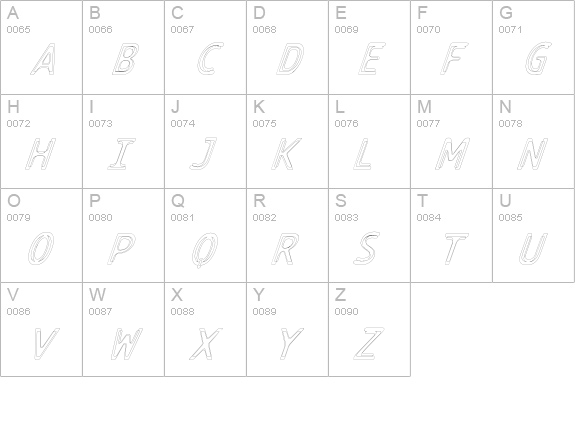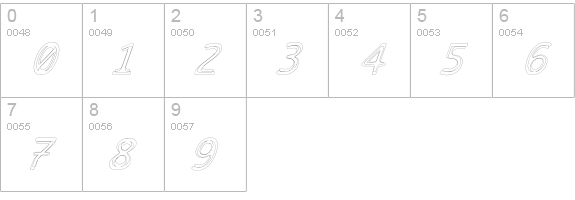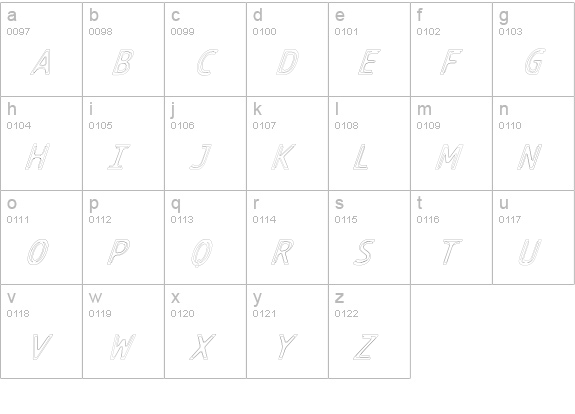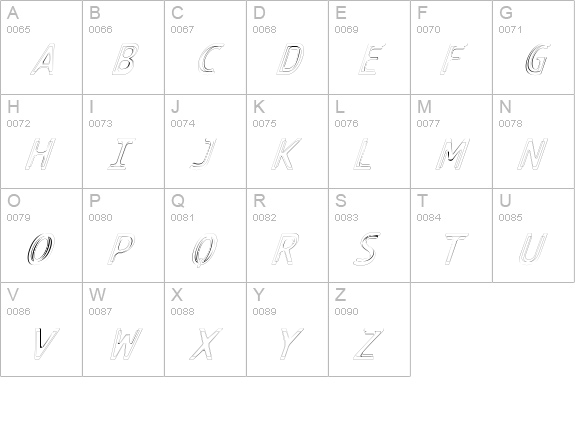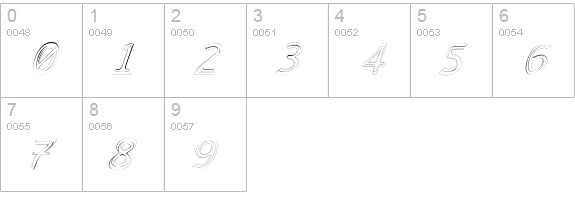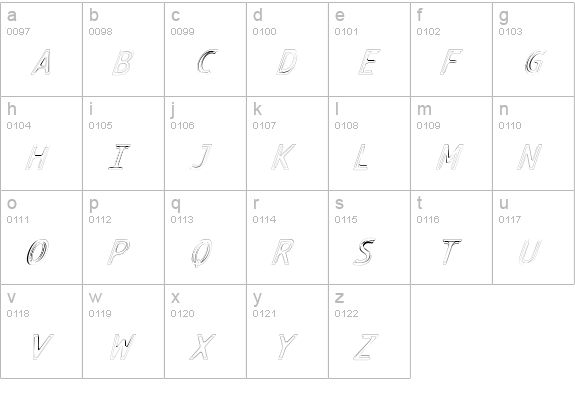
TECHNOIRE-Offline Font Details
TECHNOIRE-Offline is a cutting-edge font that embodies the essence of modernity and technology. With its sleek and futuristic design, this font is perfect for any project that aims to convey a sense of innovation and advancement. Designed with meticulous attention to detail, TECHNOIRE-Offline captures the spirit of the digital age with its clean lines and geometric shapes. Each letter is expertly crafted to create a harmonious balance between form and function, ensuring legibility without sacrificing style. What sets TECHNOIRE-Offline apart is not only its striking visual appeal but also its accessibility. This font is freely available to download at FontsMarket.com, making it the perfect choice for designers, developers, and creatives who seek high-quality resources without breaking the bank. Whether you're working on a website, logo, poster, or any other creative endeavor, TECHNOIRE-Offline will elevate your project to new heights. Its versatility allows it to seamlessly integrate into various design styles, from minimalist to bold and edgy. With TECHNOIRE-Offline, you can unleash your creativity and make a statement that captivates and resonates with your audience. So why wait? Download this font today and experience the power of technology combined with the freedom of creativity.